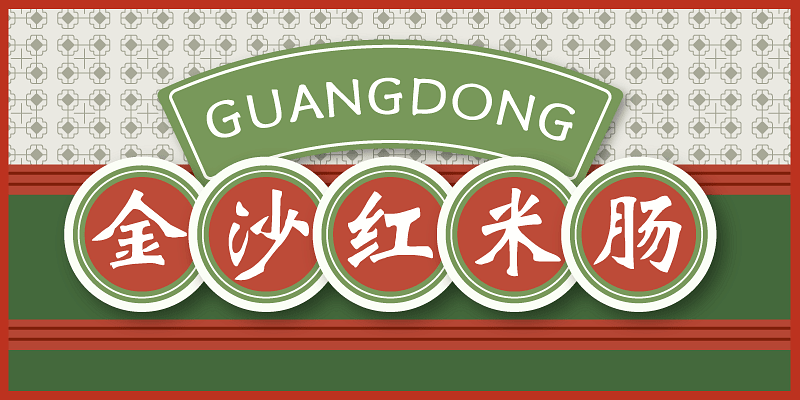
HelloFont ID Xian Xia Ti Font Free Download is a beautifully crafted serif typeface inspired by traditional Chinese calligraphy. It features flowing strokes and elegant curves, making it ideal for designs that need to convey a sense of refinement and cultural heritage. This font is perfect for branding, invitations, packaging, posters, and editorial work that requires a sophisticated and artistic touch.
HelloFont ID Xian Xia Ti Font works well for both large display text and smaller body copy, providing great legibility and style. It integrates smoothly with design tools like Adobe Illustrator, Photoshop, Figma, and Canva, making it flexible for both print and digital media.